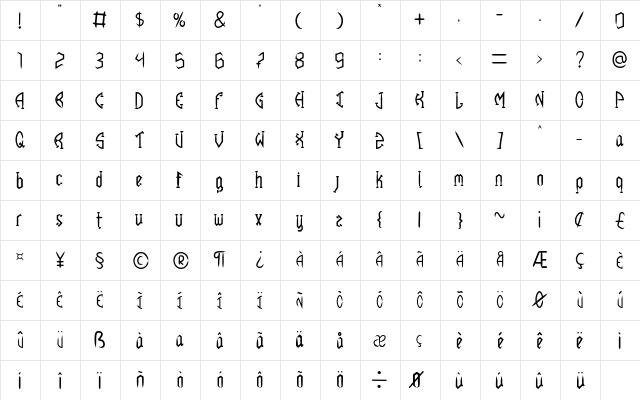
Vasco Regular
Design Context for Vasco Typeface
Vasco is a composed and adaptable typeface that performs quietly and consistently across a wide range of design contexts.